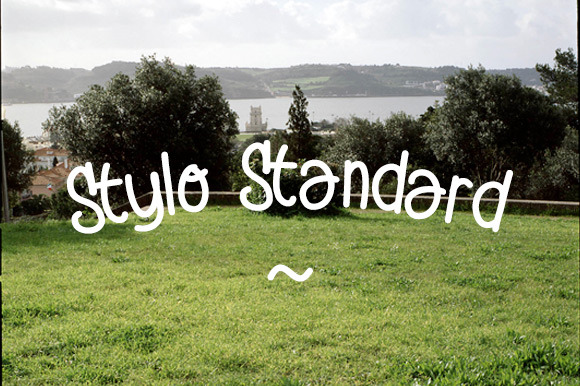
Stylo Standard - hand drawn font
With this font, you sure have the flow ! Standard hand writing easy to apply in your designs and layouts.
Stylo Standard detail :